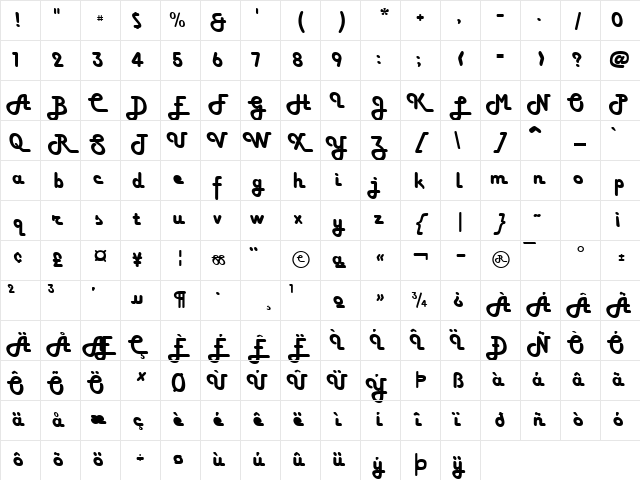
Happy Days Upright Regular
Design Context for Happy Days Upright
Happy Days Upright is a composed and adaptable typeface that performs quietly and consistently across a wide range of design contexts.
Pro Tip: Use Happy Days Upright in both headline and body roles to test its range before committing to a single application.